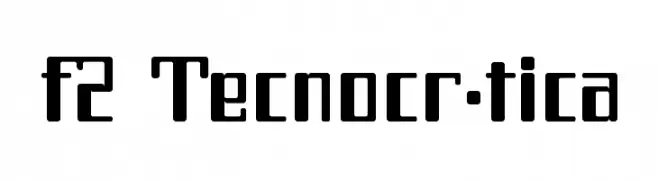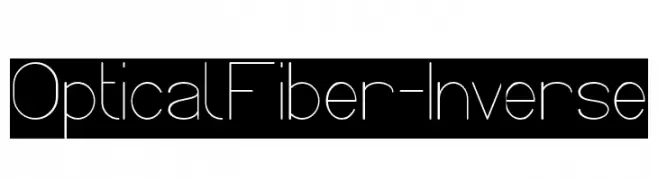
A modern, geometric font with angular shapes and clean lines, perfect for tech projects.
A dynamic, brush-style font with an artistic and hand-drawn appearance.
A sophisticated script font with elegant, flowing letterforms.
A decorative and abstract font with mystical, symbolic characters.
An elegant script font with graceful, flowing lines and sophisticated style.
A bold, modern Gothic-inspired italic font with elongated, condensed characters.
An elegant script font with flowing, interconnected letters and sophisticated curves.
A modern, angular serif font with tall, narrow letterforms and strong vertical emphasis.
A modern, geometric font with clean lines and a minimalist style.
A sleek, modern font with geometric, thin lines and uniform structure.